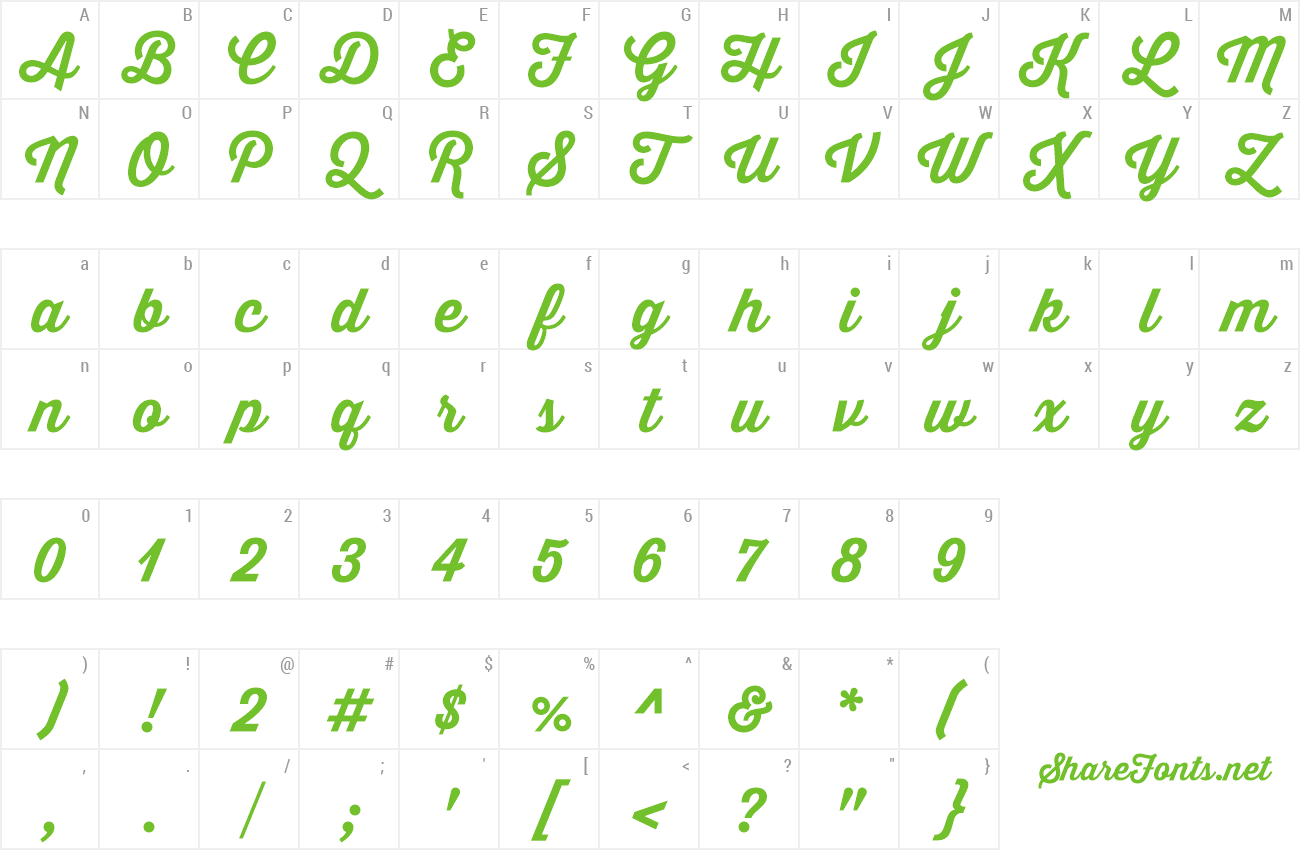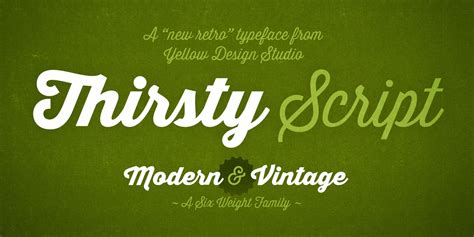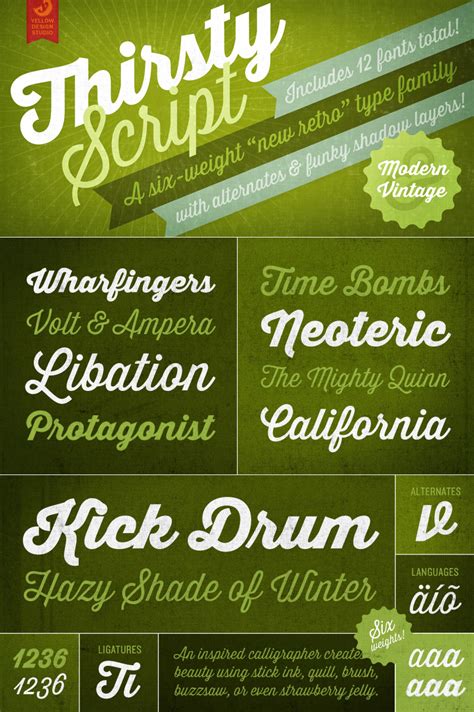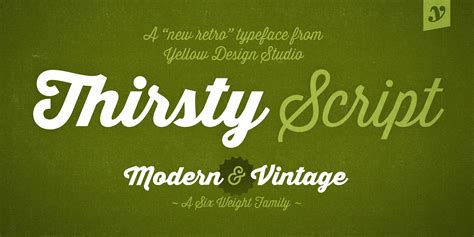
Thirsty Script Font
Thirsty Script Font - View cart for full licensing options. Web explore thirsty script designed by ryan martinson at adobe fonts. Thirsty script is a contemporary script conceived.